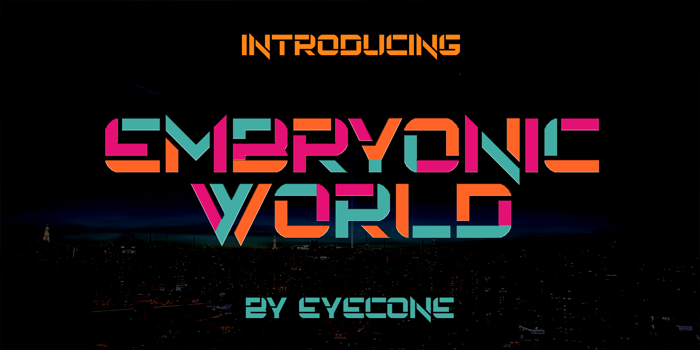
Embryonic World Font
Embryonic World Font is a Futuristic font and was created on . Since then, it has been downloaded 4,977 times and added to 87 collections. 5 people have liked Embryonic World Font and given it a thumbs up.
Perfect for logo, magazine, book cover etc..